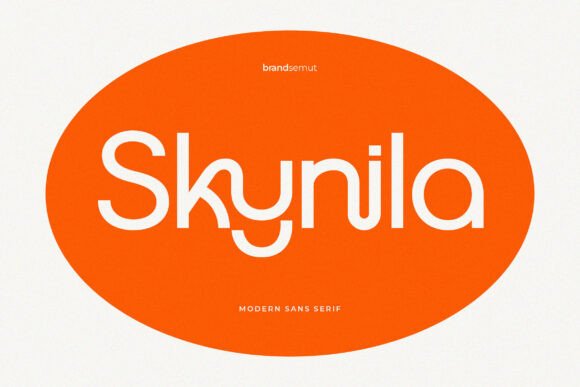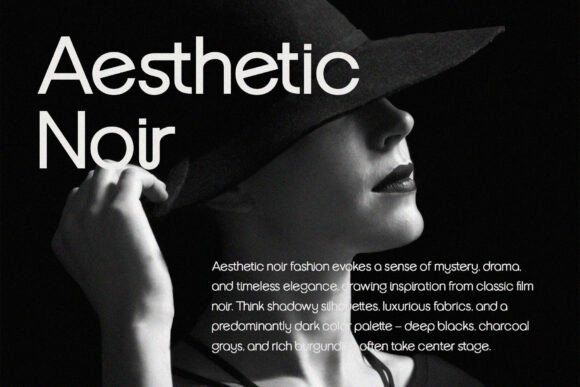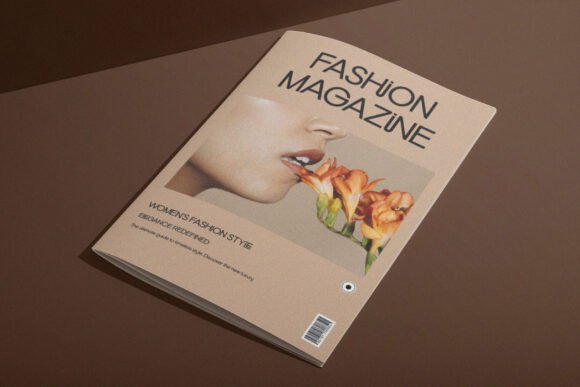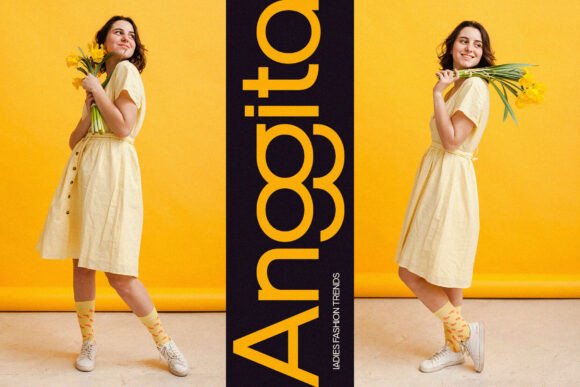
Skynila Font: Modern Sans Serif for Elegant Logo Design & Branding
About the Skynila Font
Step up your design game with Skynila Font, a font that exudes confidence and style. Introducing Skynila Modern Display Sans Serif.
Skynila is a modern and unique font, best used as a display for headings, logos, branding, magazines, product packaging and invitations. Skynila comes with clean lines and smooth curves, giving any project an extra touch of class.
Skynila Font Usage Examples
Skynila Font Example